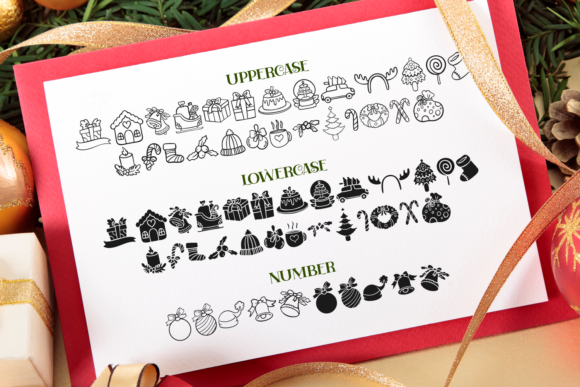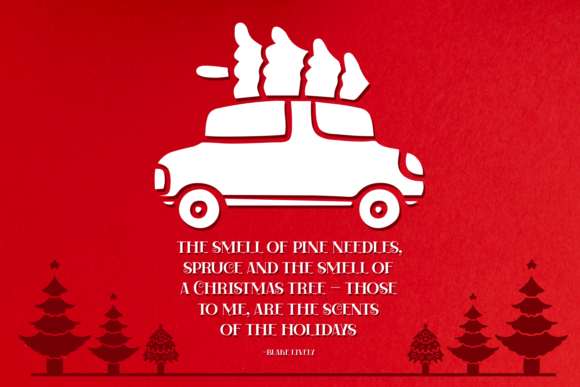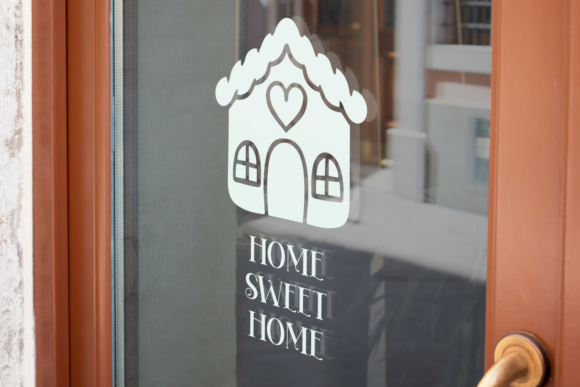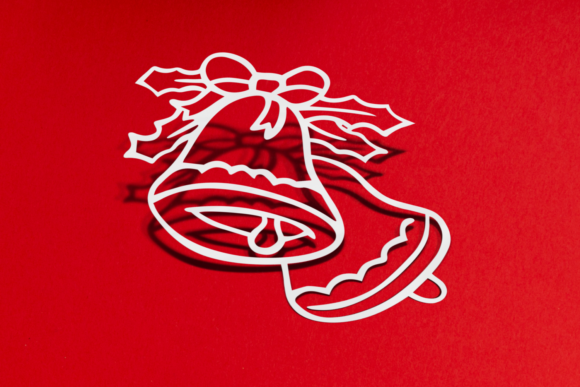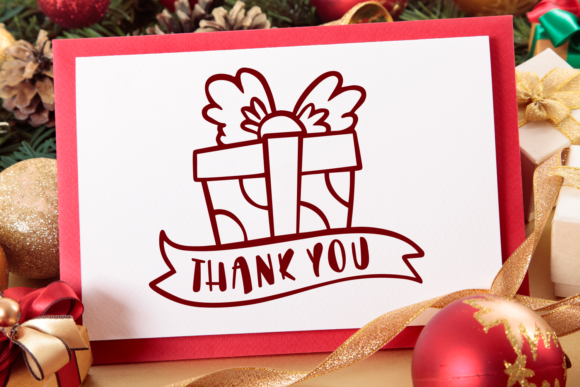
Doodles for Christmas Font: Add a Festive Touch to Your Winter Designs
As the winter season approaches, designers and crafters are on the lookout for the perfect fonts to add a festive touch to their holiday-themed projects. If you’re searching for a font that exudes warmth and festivity, look no further than Doodles for Christmas Font. This delightful dingbats font is sure to become a favorite in your collection, and we’re excited to share its features and uses with you.
What is Doodles for Christmas Font?
Doodles for Christmas Font is a unique and charming dingbats font designed specifically for the holiday season. Its playful and whimsical design makes it perfect for adding a personal touch to your winter-themed designs. The font features a wide range of festive symbols, including snowflakes, holly leaves, Christmas trees, and more. Each character is carefully crafted to bring a sense of joy and festivity to your projects.
Key Features of Doodles for Christmas Font
- Festive and Warm Design: Doodles for Christmas Font boasts a warm and inviting design that’s perfect for creating holiday-themed projects.
- Dingbats Font: This font features a wide range of festive symbols, making it ideal for adding a decorative touch to your designs.
- Easily Customizable: Use Doodles for Christmas Font to create unique and personalized designs that reflect your style.
Uses for Doodles for Christmas Font
Doodles for Christmas Font is a versatile font that can be used in a variety of design projects, including:
- Holiday Cards and Invitations: Add a personal touch to your holiday cards and invitations with this festive font.
- Winter-themed Designs: Use Doodles for Christmas Font to create winter-themed designs, such as snowflake patterns, holiday-themed illustrations, and more.
- Crafting Projects: This font is perfect for crafters who want to add a festive touch to their projects, such as handmade cards, gift tags, and scrapbooking pages.
- Social Media Graphics: Use Doodles for Christmas Font to create festive social media graphics, such as holiday-themed Facebook posts and Instagram stories.
Tips for Using Doodles for Christmas Font
To get the most out of Doodles for Christmas Font, here are a few tips to keep in mind:
- Experiment with Different Sizes and Colors: Play around with different sizes and colors to find the perfect combination for your design.
- Combine with Other Fonts: Pair Doodles for Christmas Font with other fonts to create a unique and visually appealing design.
- Use as a Decorative Element: Use this font as a decorative element to add a festive touch to your designs.
| Author | Dani (7NTypes) |